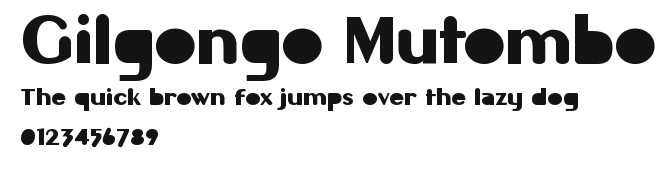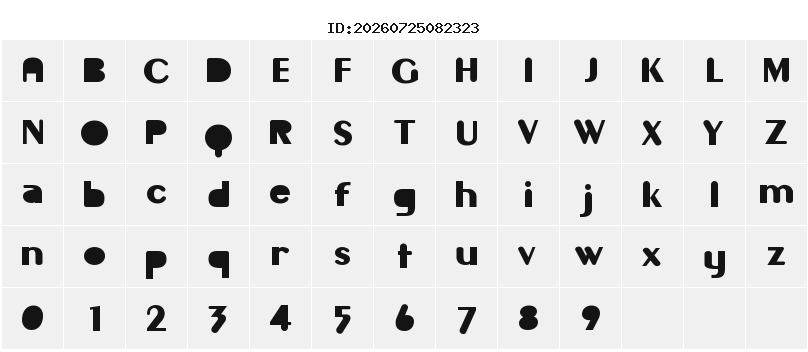
Gilgongo Mutombo Preview
• Font Name: Gilgongo Mutombo
• Full Font Name: Gilgongo Mutombo
• PostScript Name: GilgongoMutombo
• Designer: Apostrophe & Graham Meade
About Gilgongo Mutombo.ttf
Gilgongo Mutombo.ttf is a modern, elegant sans-serif font designed for ultimate readability and visual harmony. Perfect for branding, headlines, web design, and print materials.